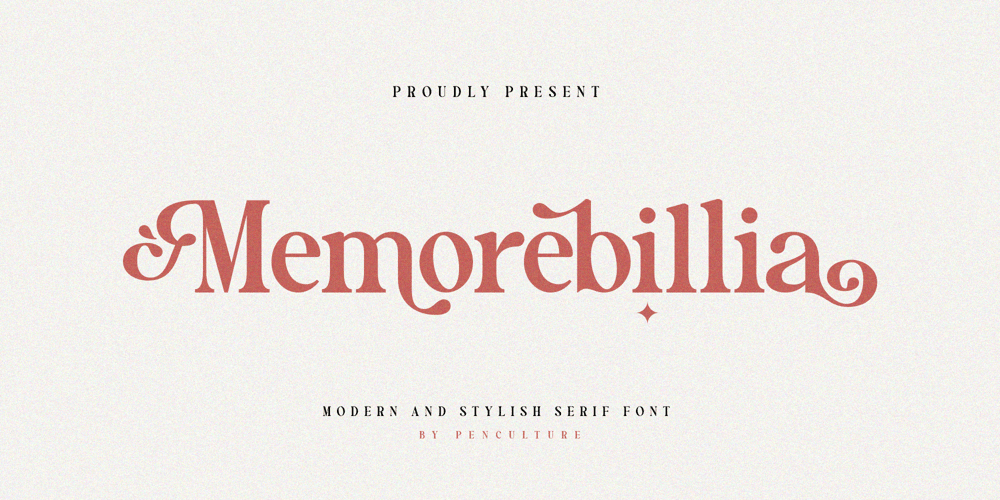
Memorebilia Font Family was designed by Revo Farsiky and published by Pen Culture. Memorebilia contains 1 styles and family package options. Proudly present “Memorebillia – Modern and Stylish Serif Font”Memorebillia is a serif font with ornaments. This font comes with elegant uppercase and lowercase, number and punctuation, a ton of stylistic alternates and ornaments. you can mix and match stylistic alternate and ornaments to create fun designs with this font. This font perfect for branding/logo, posters, magazines, cricut projects, embroidery and many others.I really hope you enjoy it – please do let me know what you think, comments & likes are always hugely welcomed and appreciated. More importantly, please don’t hesitate to drop me a message if you have any issues or queries.Thank you